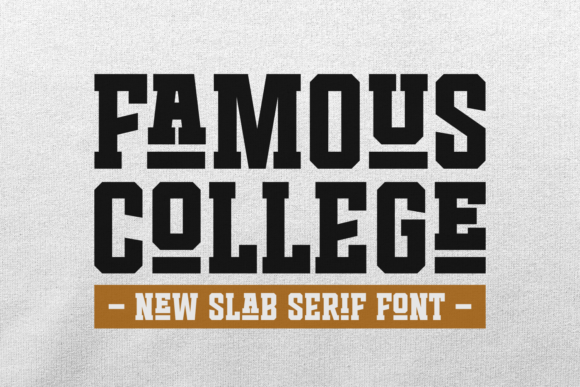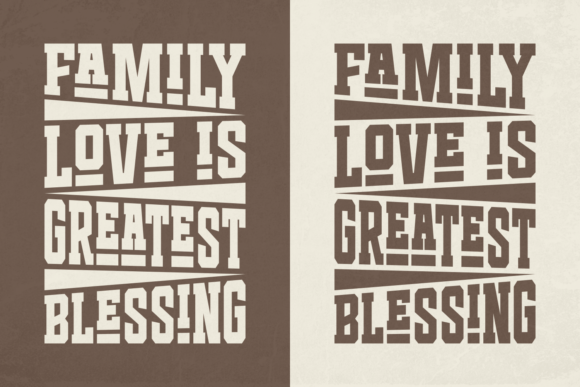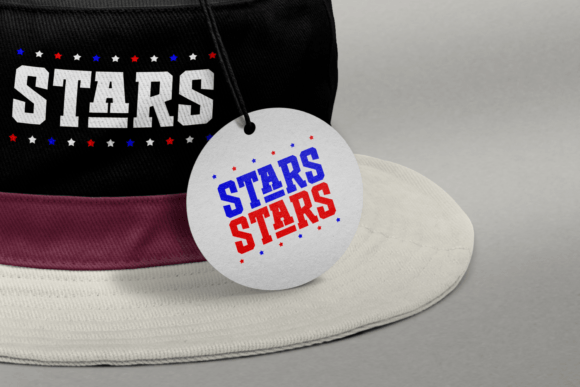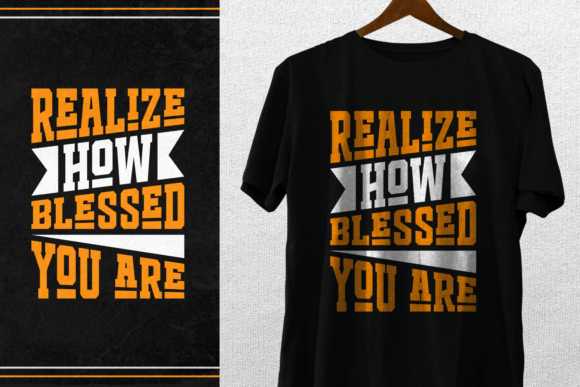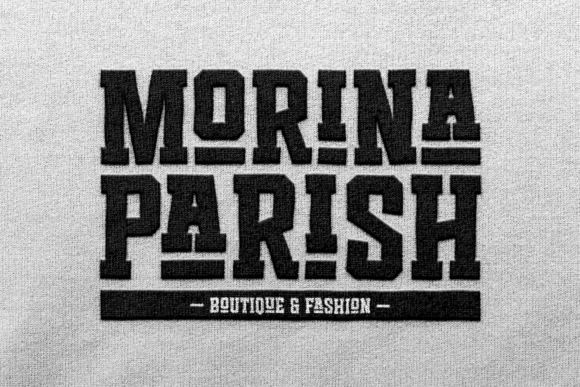
About Famous College
Famous College font adapts wonderfully in contexts such as designing labels for perfumes, cosmetics, magazine covers, posters, manifests, flyers, social posts, and fashion.
Use it in your creations so you can notice how fastly it becomes one of your favorite fonts.